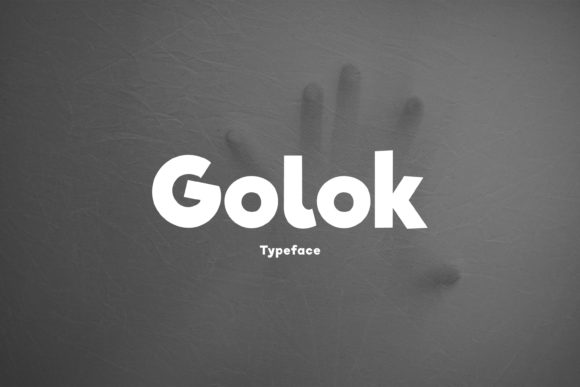
Introducing Golok Font: The Epitome of Bold and Striking Typography for Your Branding Needs
In a world saturated with visual content, capturing attention and making a lasting impression has become an art form. With the Golok Font, BeeType presents a typographic masterpiece that transcends the boundaries of ordinary fonts, propelling your branding efforts to unprecedented heights.
Golok Font: A Bold Statement of Confidence and Style
Golok's thick, bold letters exude an air of confidence and authority, commanding attention and demanding respect. Its striking presence is sure to make a lasting impression on your audience, leaving them with a sense of awe and admiration. Whether you're creating logos, posters, website headers, or social media graphics, Golok Font will elevate your designs to new heights of sophistication and impact.
Unleash Your Creativity with Endless Possibilities
With Golok Font, your creativity knows no bounds. Experiment with different colors, sizes, and effects to bring your designs to life. Whether you prefer a minimalist approach or a more elaborate style, Golok Font adapts seamlessly to your vision, allowing you to express your unique personality and style.
Stand Out from the Crowd with Unforgettable Branding
In a sea of sameness, Golok Font empowers you to stand out from the crowd and make a statement. Its distinctive style ensures that your brand will be remembered, recognized, and associated with excellence. From business cards and letterheads to product packaging and marketing materials, Golok Font will transform your branding into a memorable experience that resonates with your audience.
A Versatile Font for Multifaceted Projects
Golok Font's versatility extends far beyond branding. Its bold and striking nature makes it an ideal choice for a wide range of projects, including posters, flyers, invitations, social media posts, and website designs. Whether you're a graphic designer, marketer, or entrepreneur, Golok Font is the perfect tool to add a touch of boldness and impact to your visual creations.
Experience the Golok Difference Today